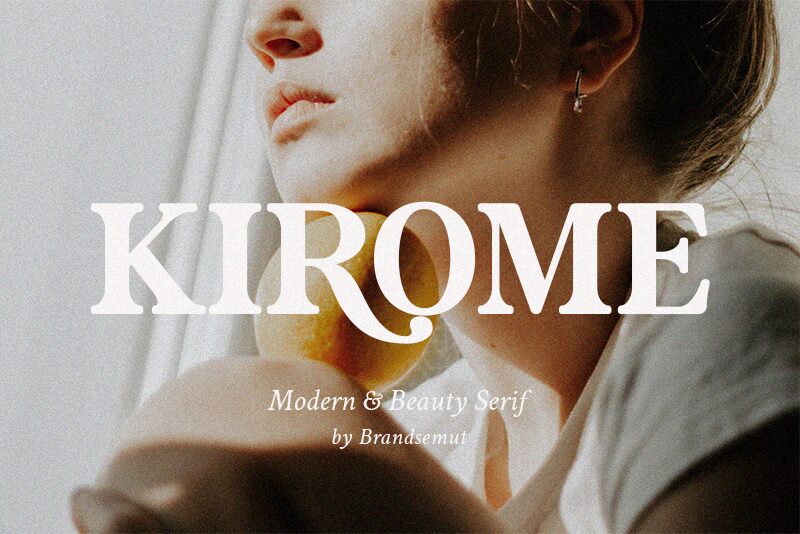
Introducing Kirome, a stunning modern serif font designed by BrandSemut. With its bold weight and beautiful style, Kirome exudes elegance and sophistication.
This versatile font is perfect for a wide range of projects, including luxury branding, editorial design, wedding invitations, and high-end fashion magazines. Its clean lines and striking presence make it ideal for creating impactful headlines and eye-catching logos.
Elevate your designs with the timeless beauty of Kirome and leave a lasting impression on your audience.